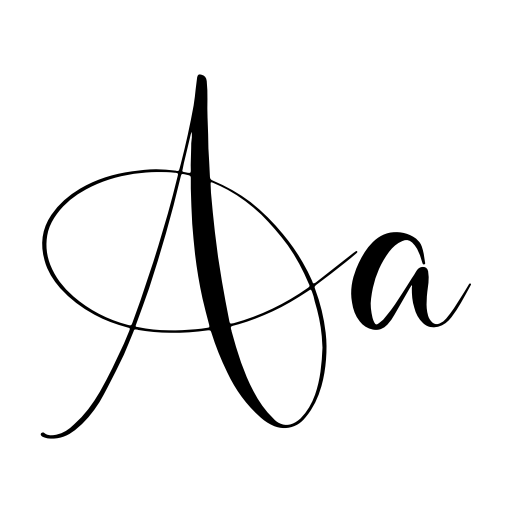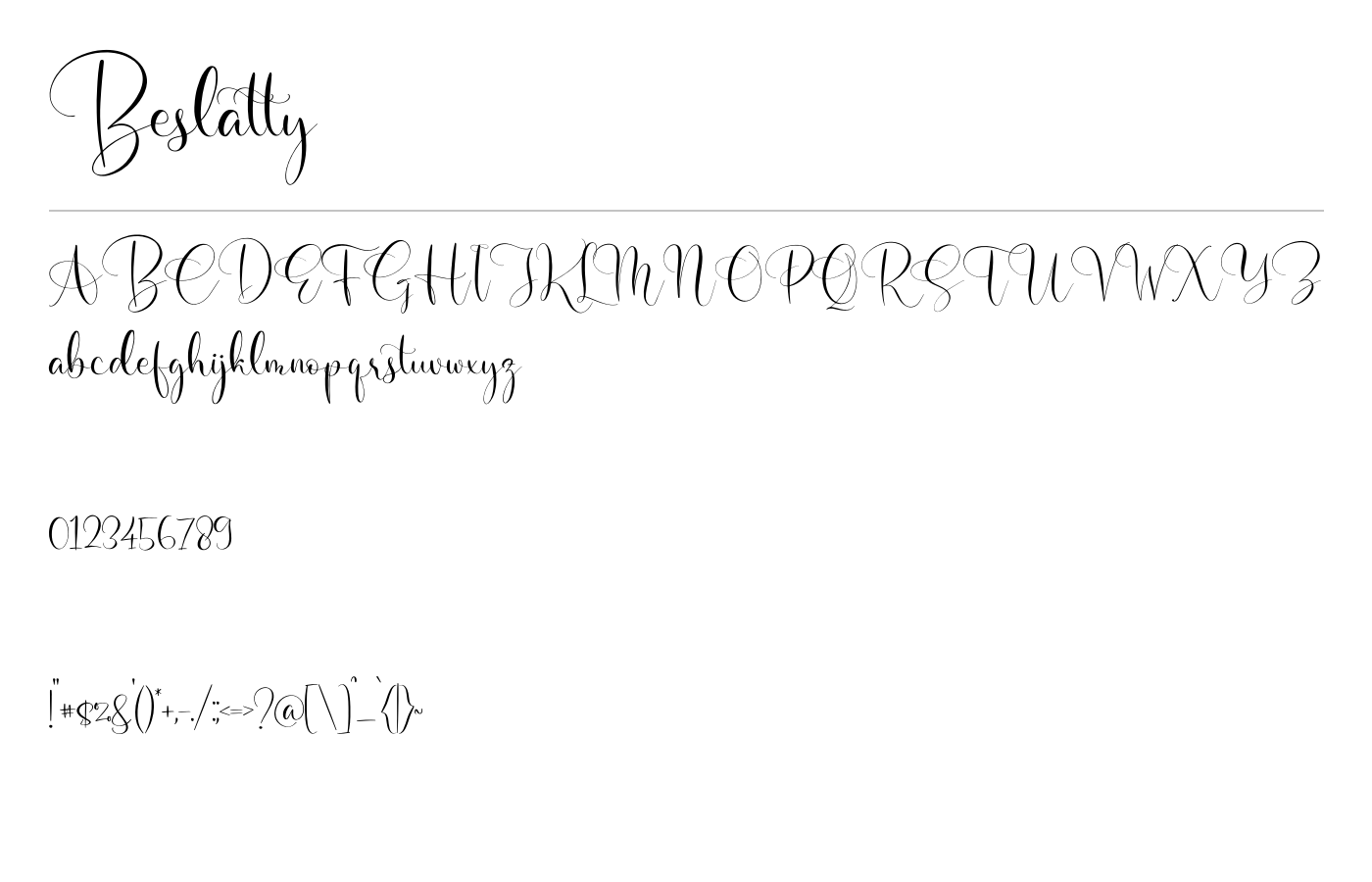
Beslatty is an elegant and delicate script font characterized by its tall, slender letterforms and intricate, swirling flourishes that add a graceful, decorative touch. Its light weight and high contrast strokes give it a sophisticated, romantic feel, making it perfect for wedding invitations, luxury branding, and feminine editorial designs that seek a refined, artistic aesthetic. This font works best in large sizes where its fine details can shine, adding charm and elegance to logos, headlines, and stylish packaging.
Beslatty Font
About Beslatty Font